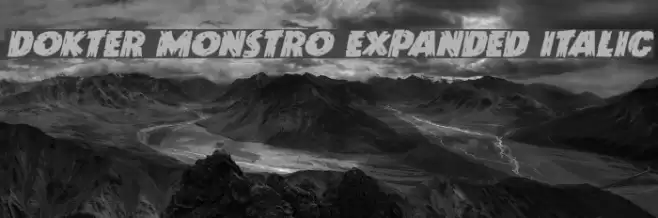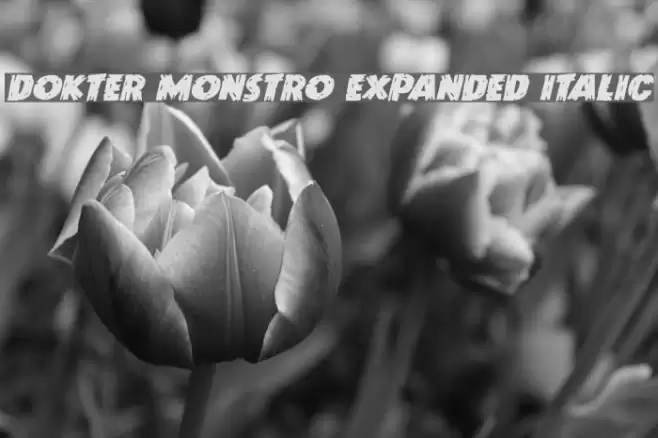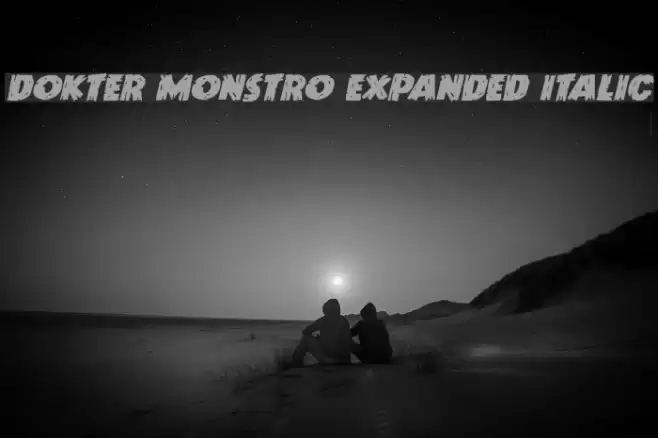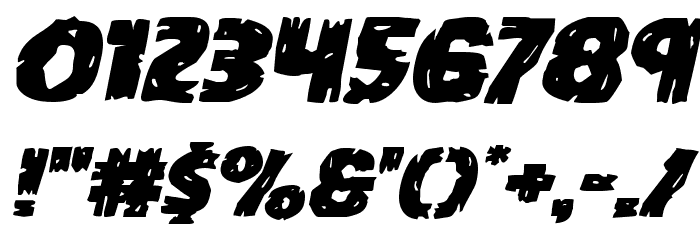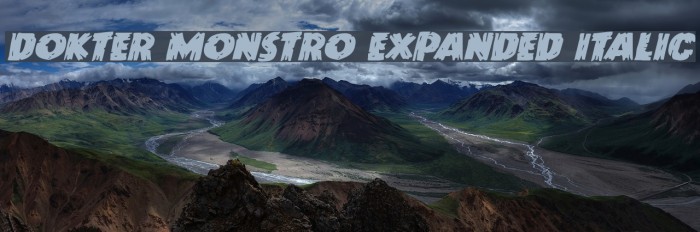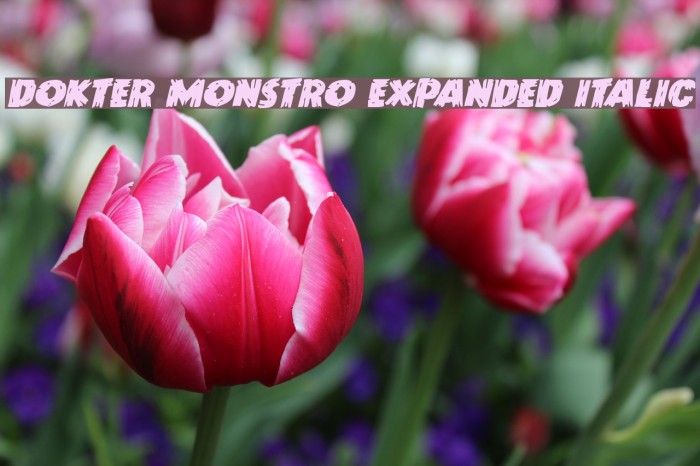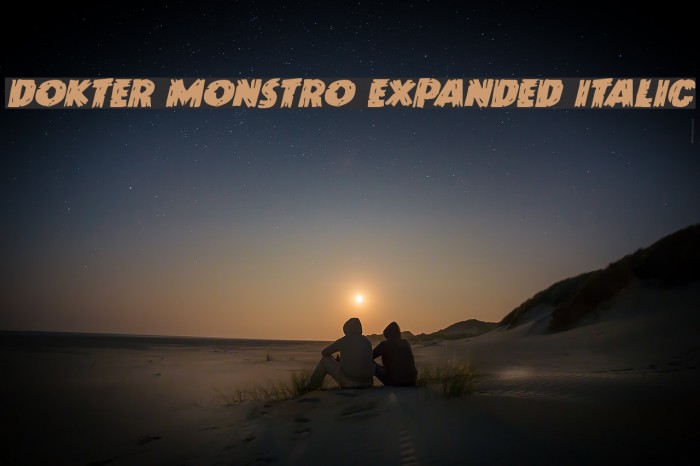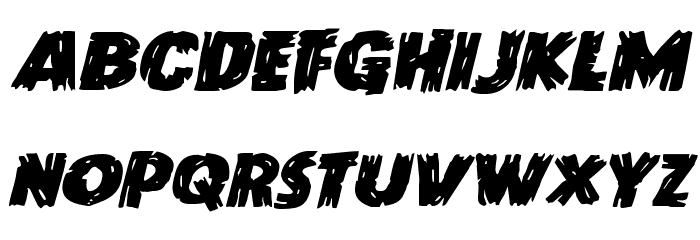
Dokter Monstro Expanded Italic Font
Dokter Monstro Expanded Italic Description
This font features a bold and dynamic style with a distinctly jagged and energetic appearance. The characters are heavily stylized, giving an impression of movement and intensity. The strokes are thick and uneven, creating a sense of urgency and excitement. The italic slant adds to the dynamic feel, making it suitable for attention-grabbing headlines or creative projects. The expanded width of the characters enhances its bold presence, making it stand out in any design. The font's unique style is both modern and edgy, perfect for projects that require a strong visual impact.
A bold, jagged, and dynamic font with an energetic and modern style from Uncategorized fonts.
- Proposed Projects: Ideal for posters, music album covers, video game titles, or any design needing a bold and edgy look.
- Overall Style: Modern, Edgy